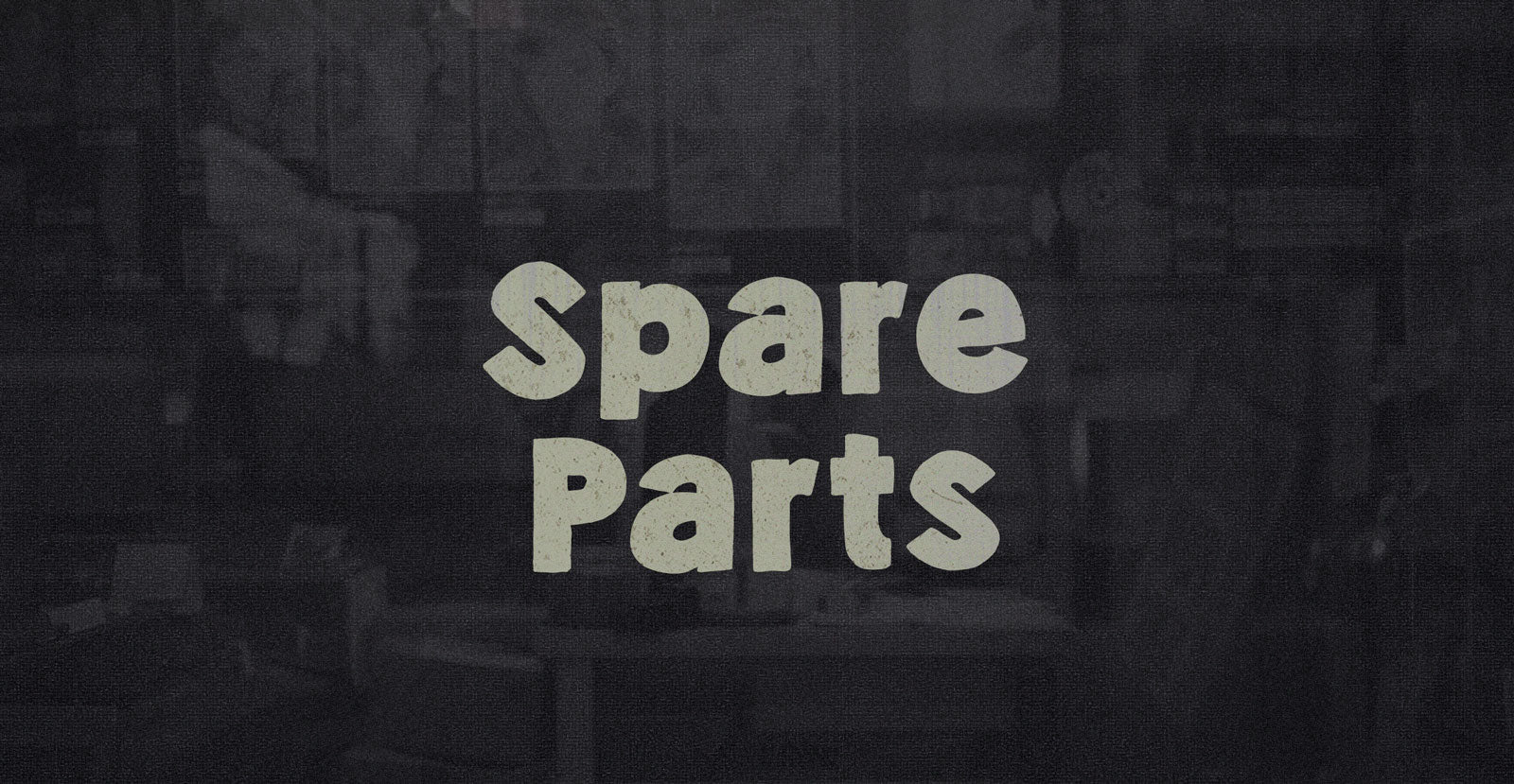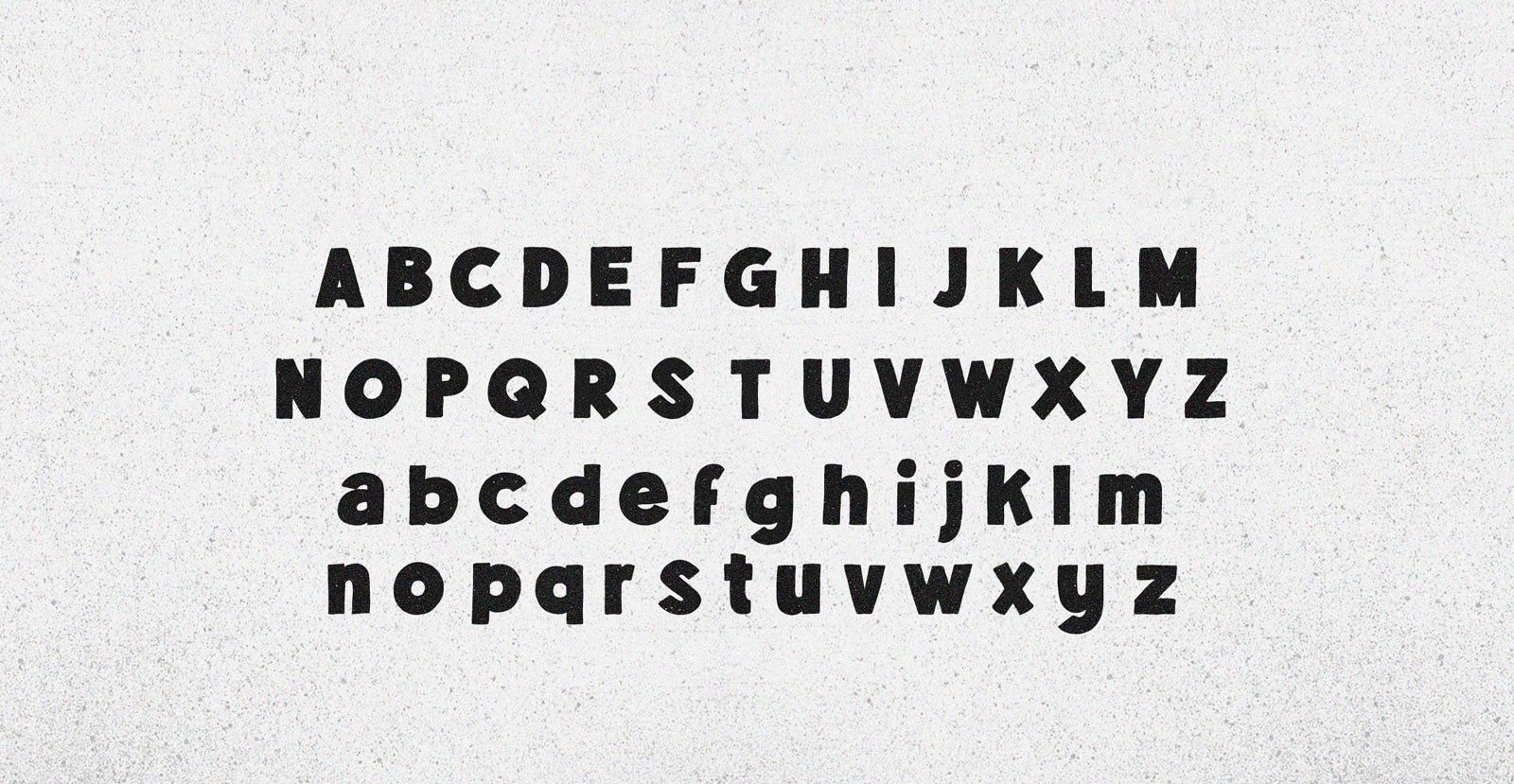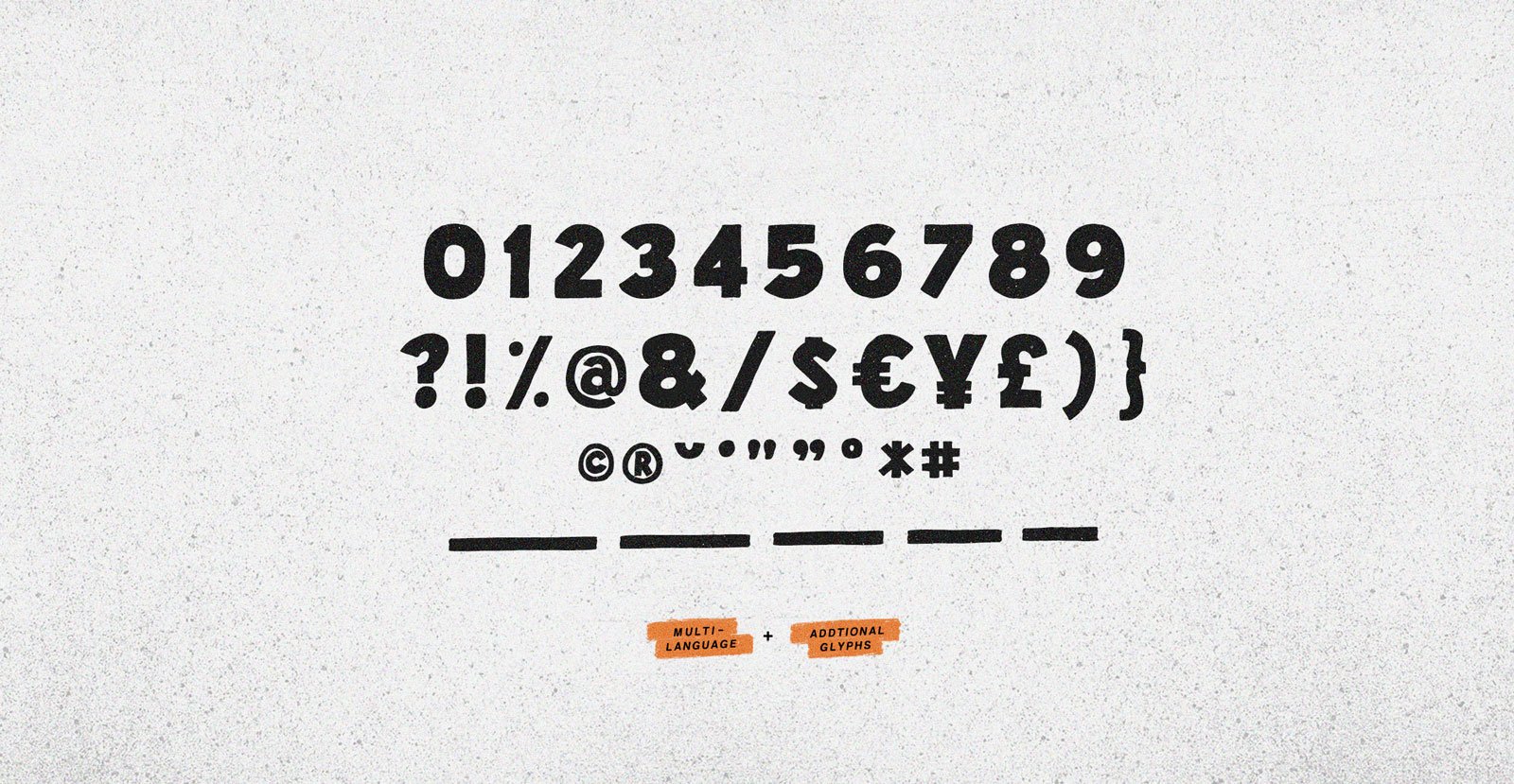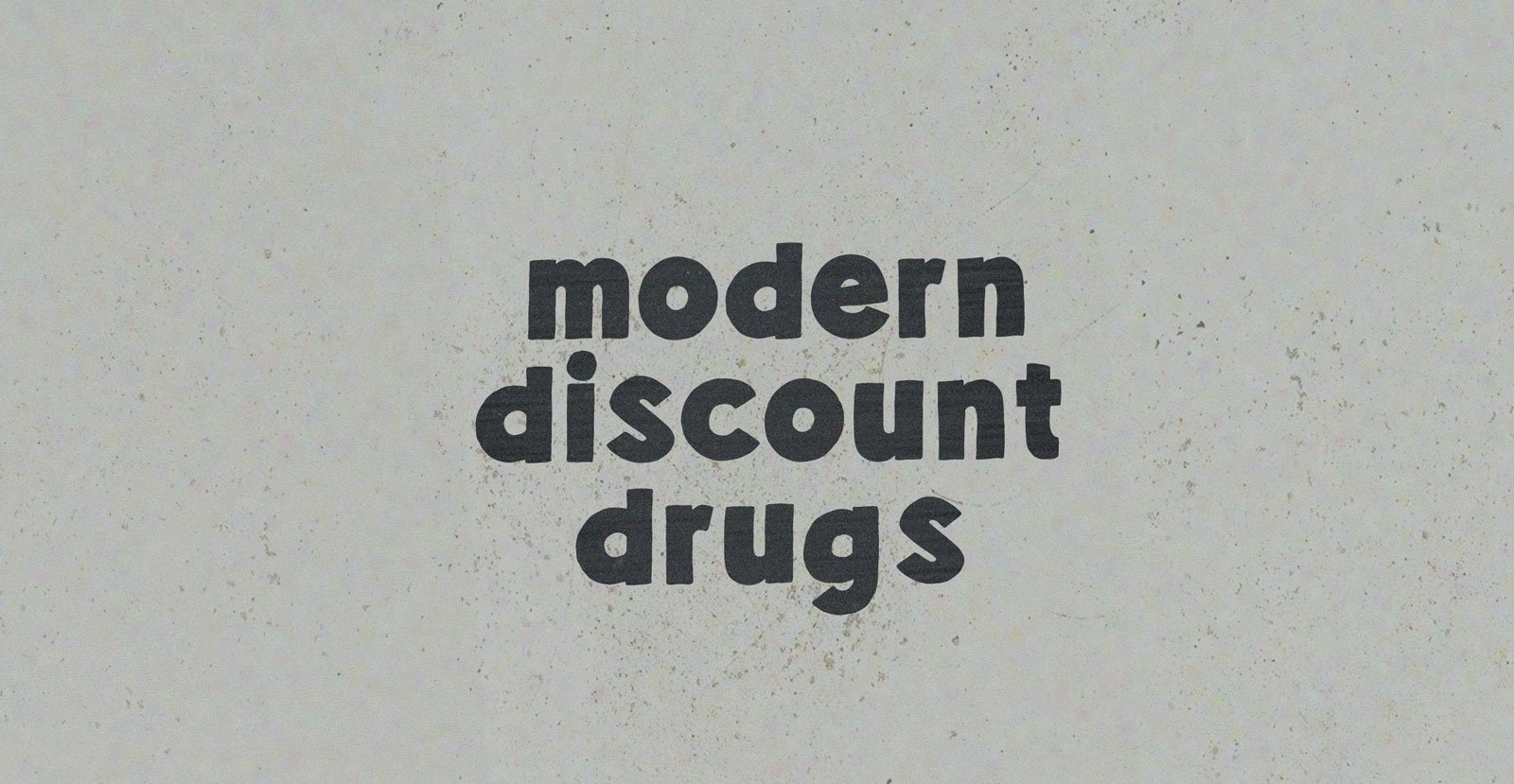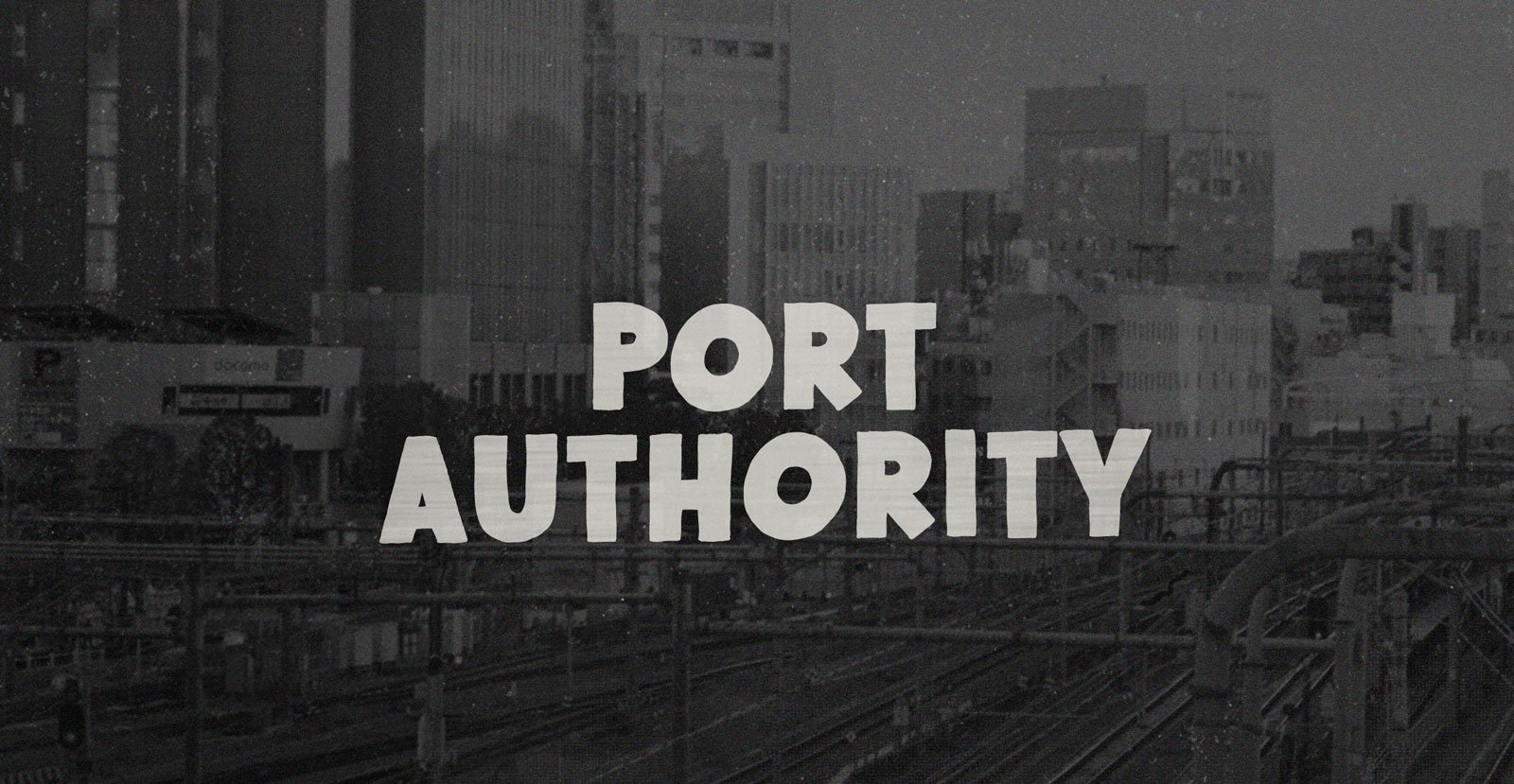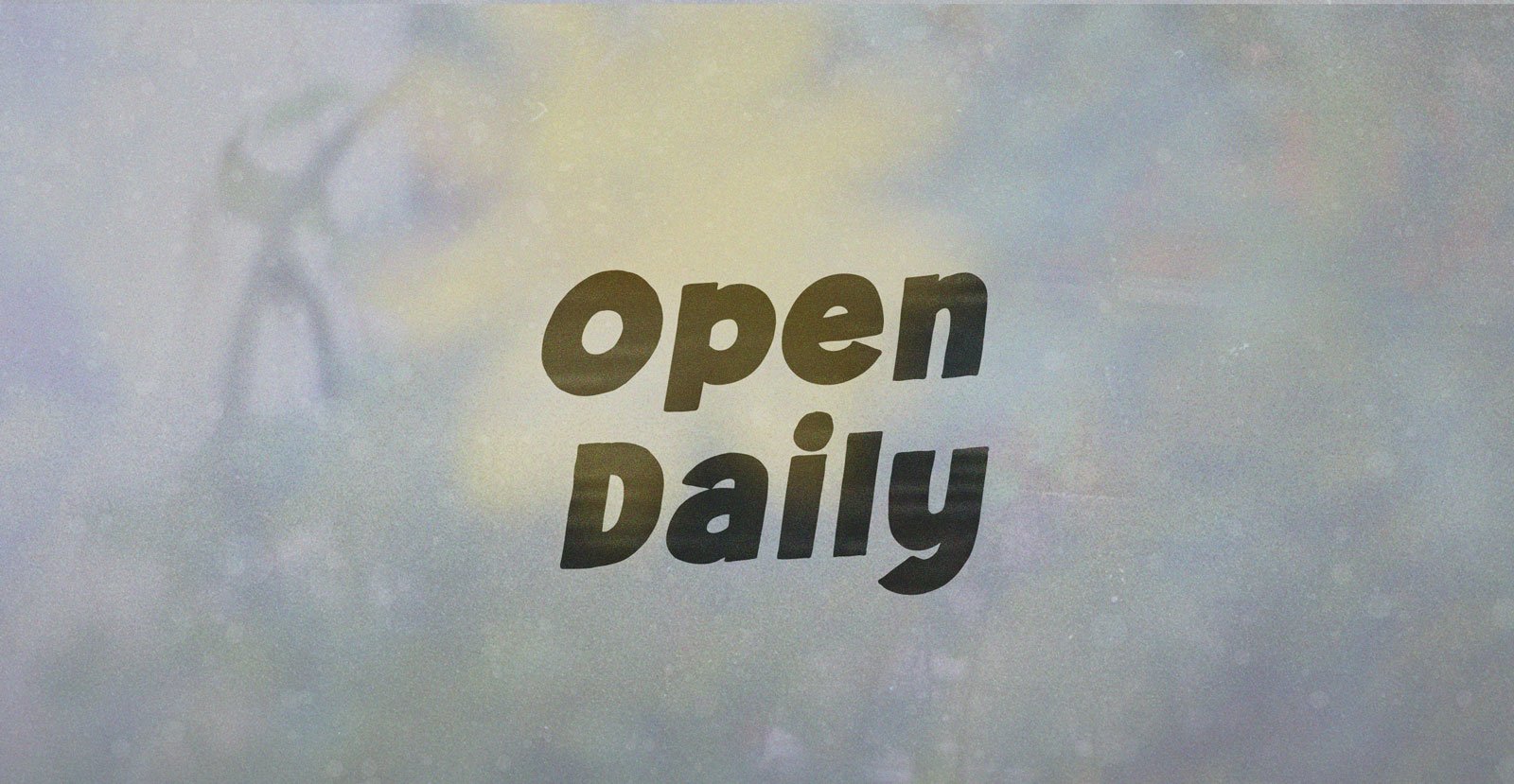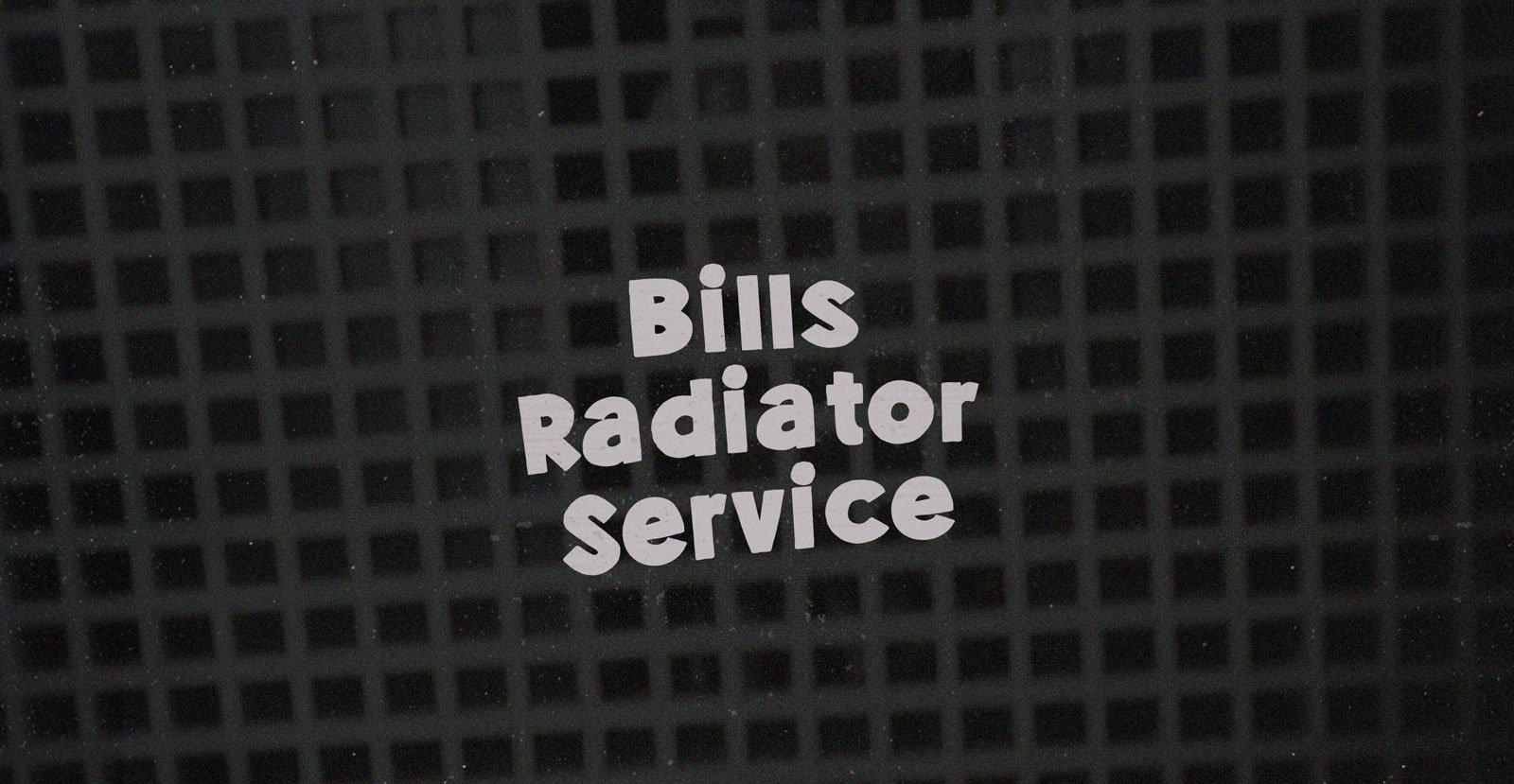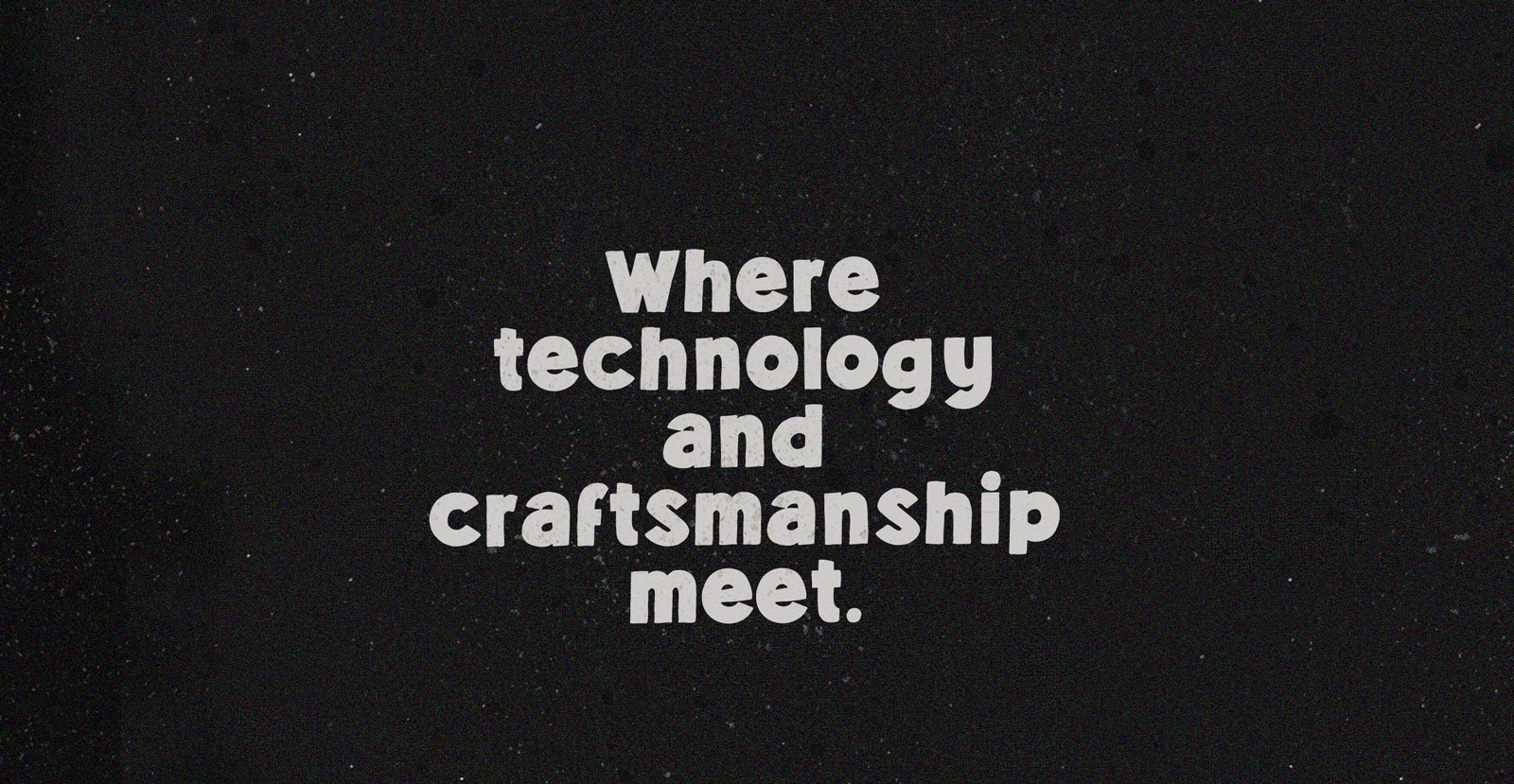
Spare Parts
Handwritten Sans Serif Font
Digging through the bike dump--the Spare Parts catalogue of things. Piecing together a future: one discarded derailleur, two treadbare tires, spokes, sprockets, stem; framed up like the picture of health and wellness.
• Underlines